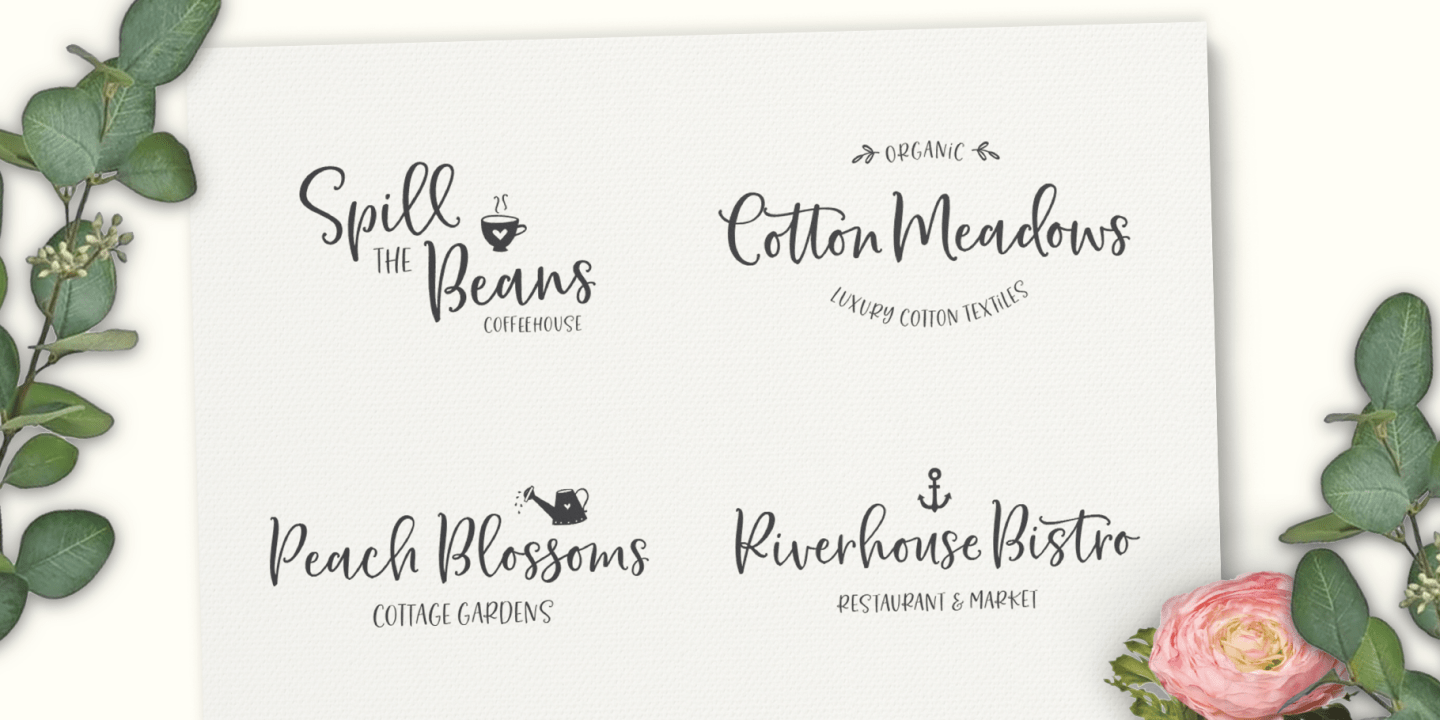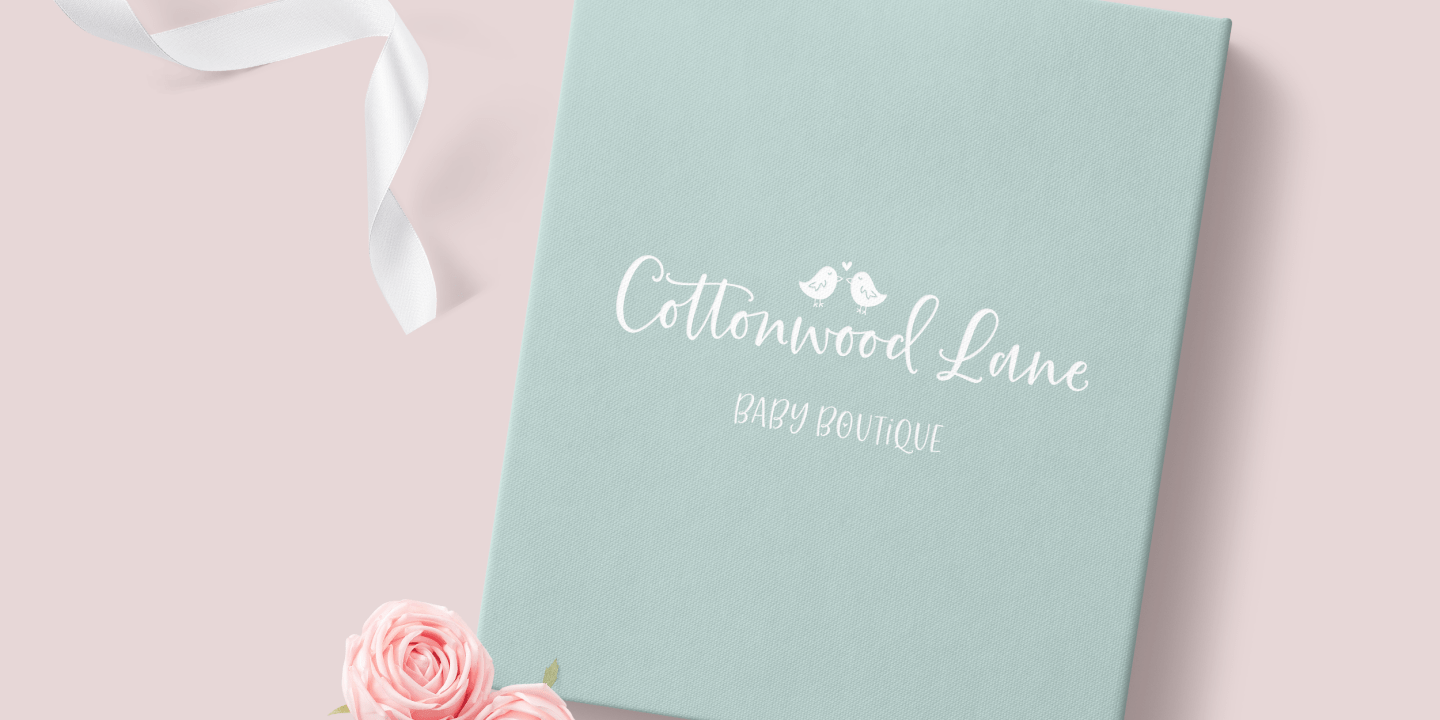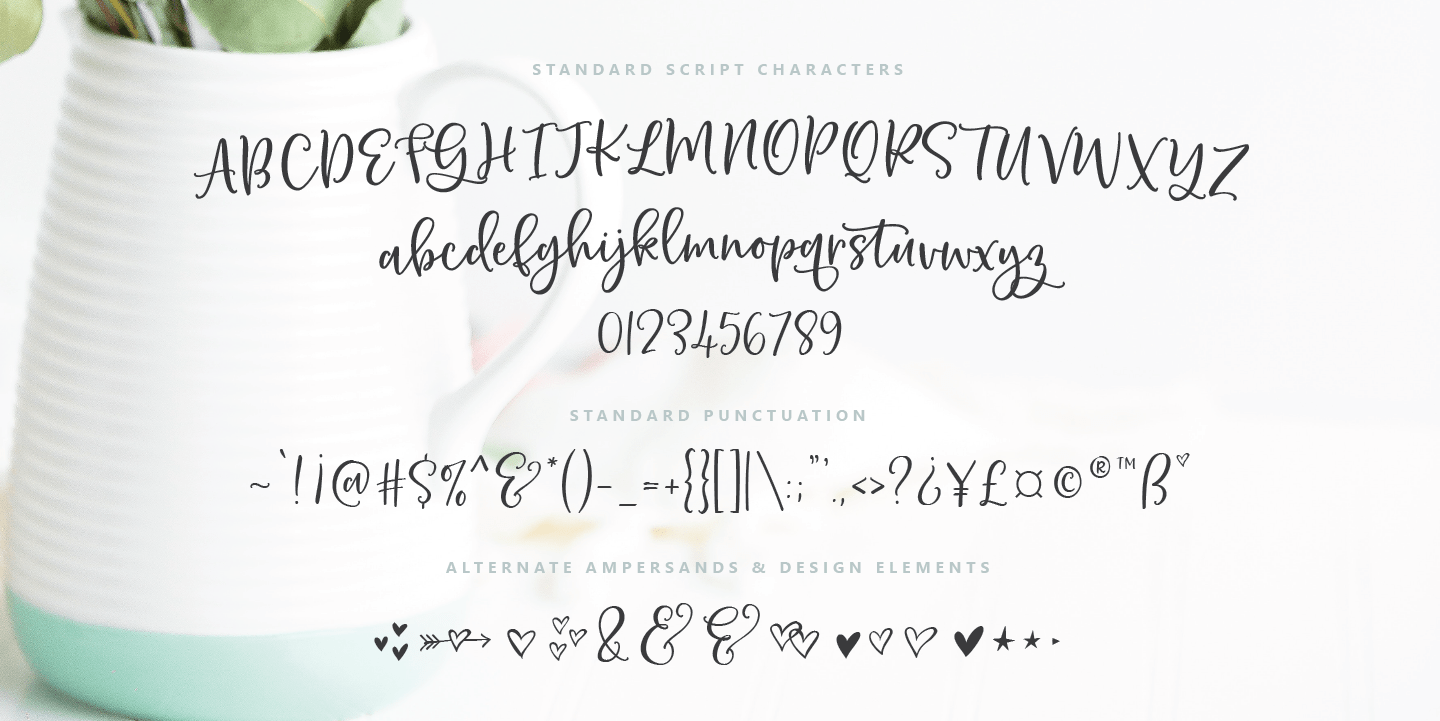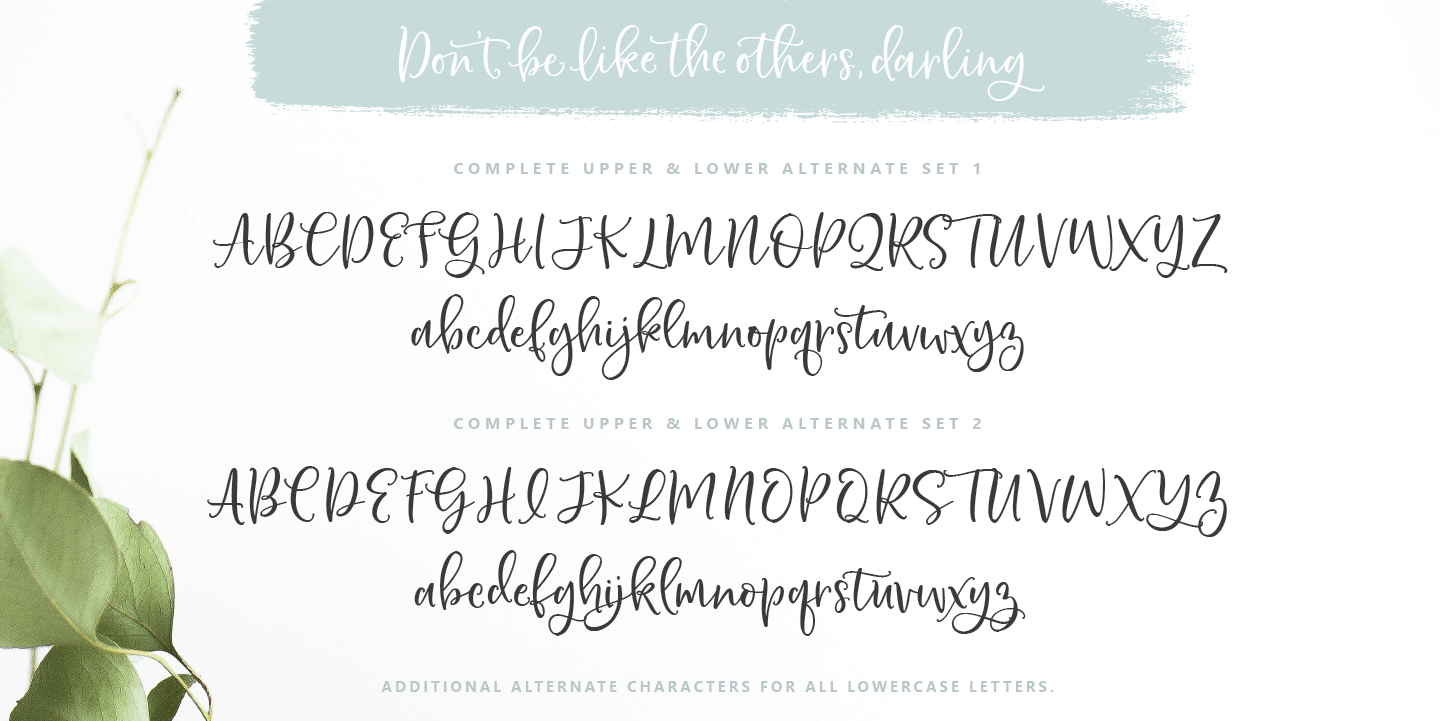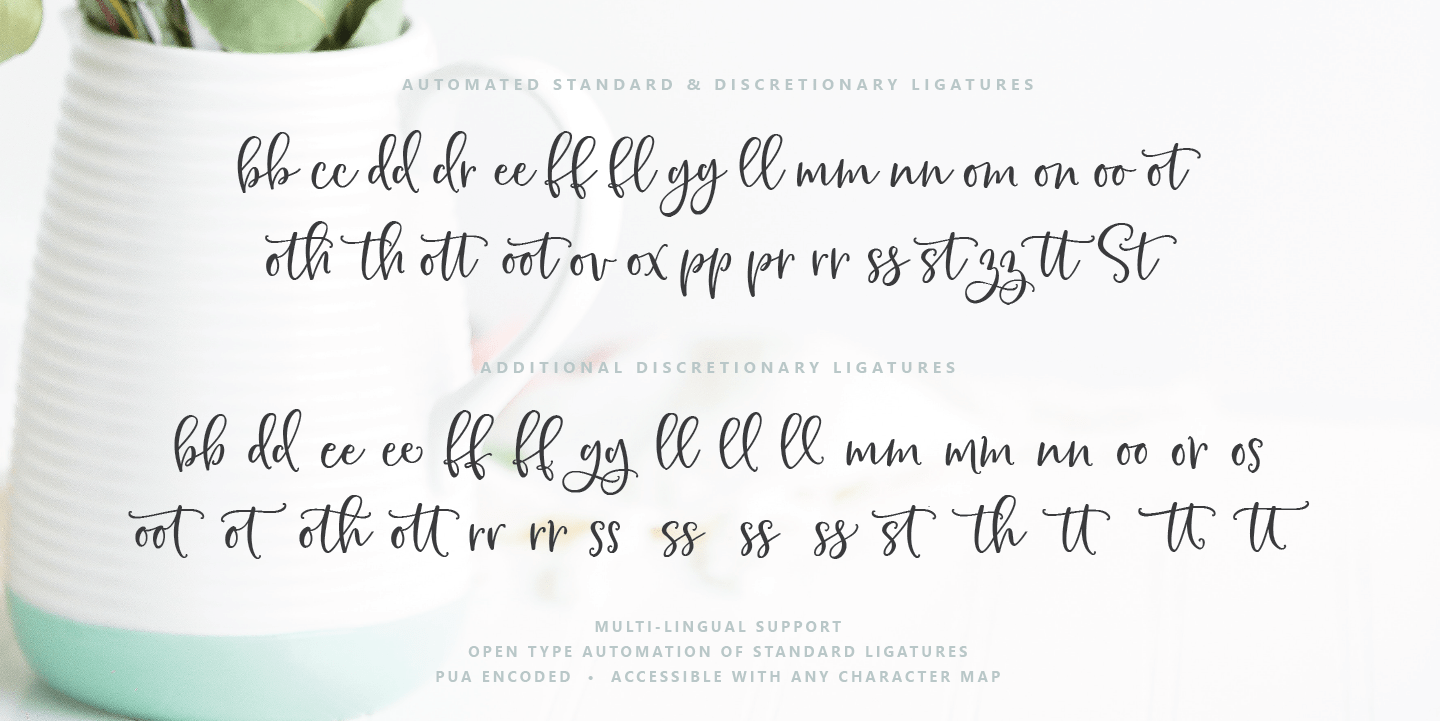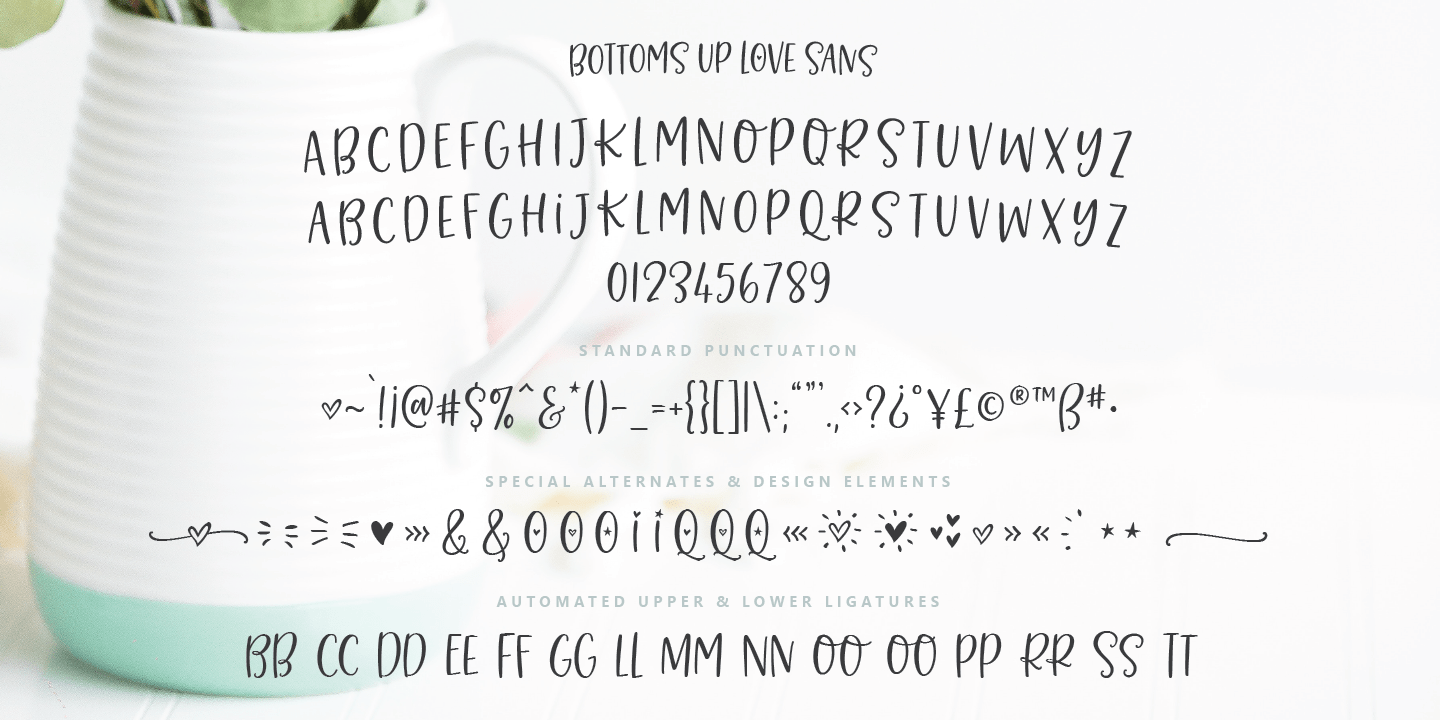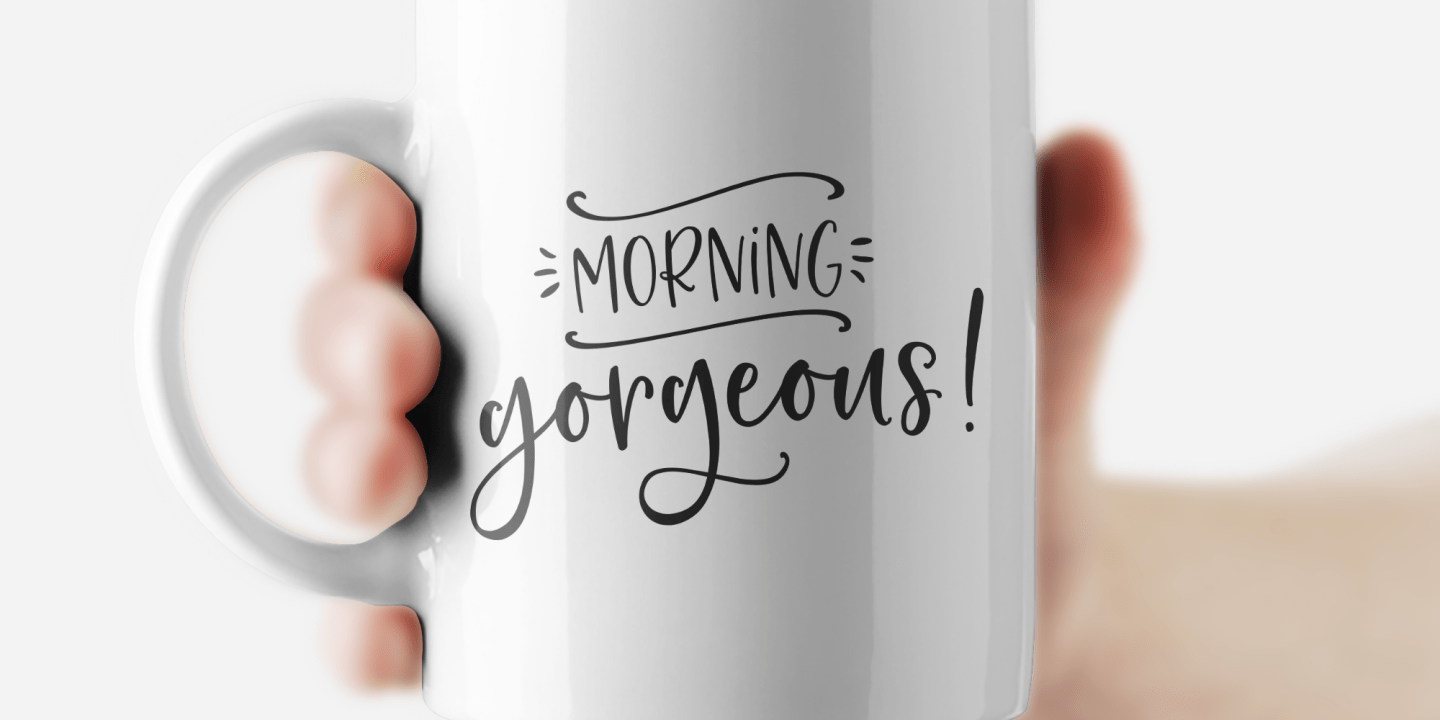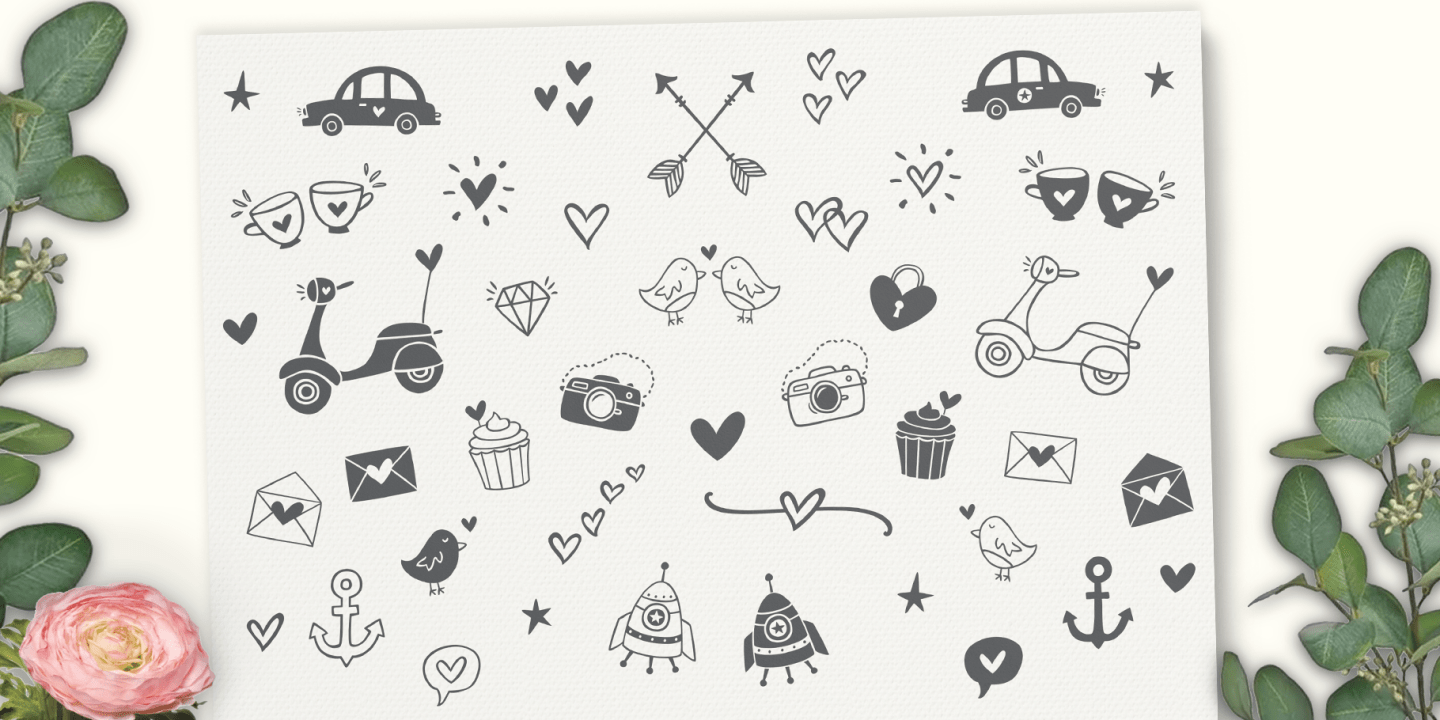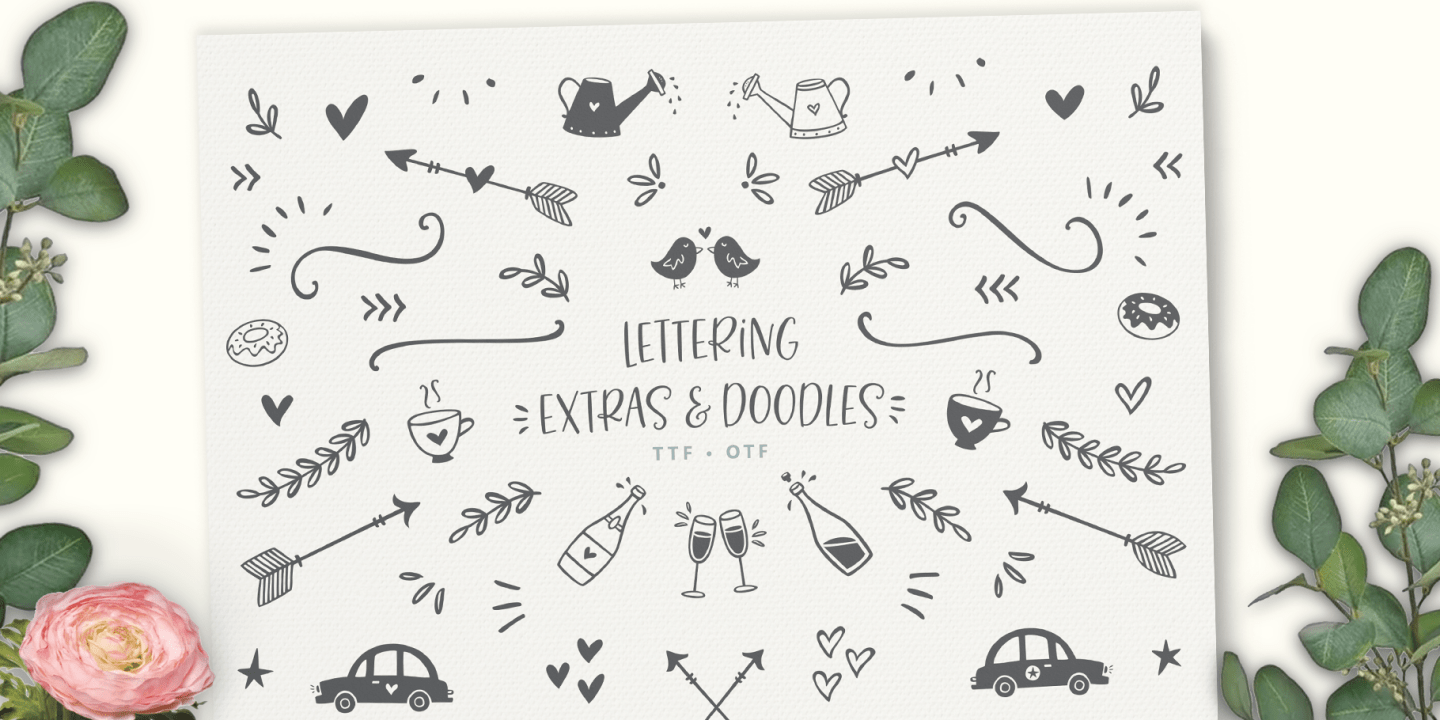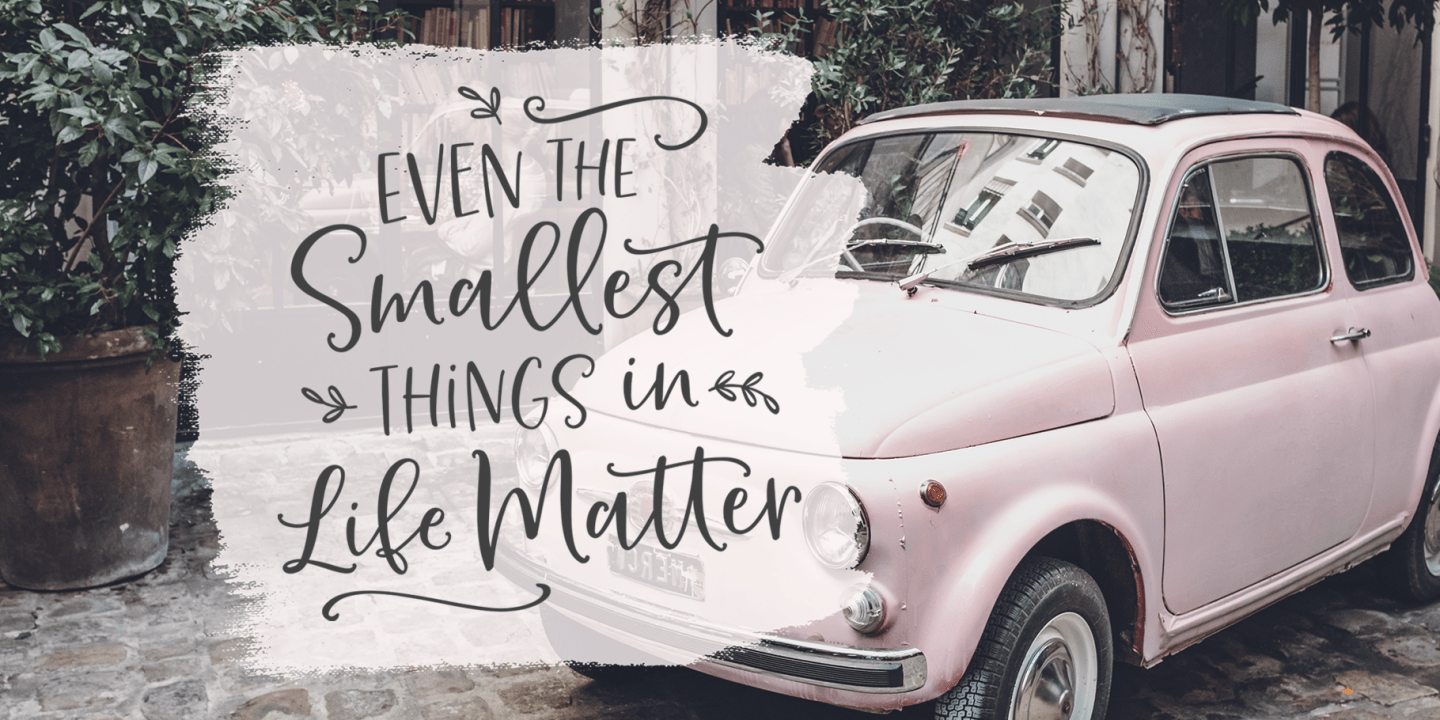
Bottoms Up Love Font Duo
Font Family by Emily Spadoni
Allow me to introduce Bottoms Up Love! ♥ A handmade font collection designed to perfectly combine an informal, sassy, romantic script, a cute bouncy sans, and hand drawn design elements.
This impromptu script flows naturally with automated standard and discretionary ligatures. 3 complete upper and lowercase stylistic letter sets, and even more alternate lowercase to add at your discretion.
Loaded with Alternate Characters! With a glyph count of over 600, You can create lettering designs and phrases with an entire set of unique letters! Your designs will appear truly hand-lettered.
Add typography design elements from a set of 90 fun and doodly hand drawn icons.
Bottoms Up Love Script
• 3 Complete Upper & Lower Letter Sets
• Automated ligatures
• 200+ Additional alternate lowercase letters
• Language Support
Bottoms Up Love Sans
• Automated ligatures
• Special alternate lowercase letters
• Typography Design Elements in the file
• Language Support
Bottoms Up Love Extras
• 90 Typography Design Elements & Hand drawn doodle icons